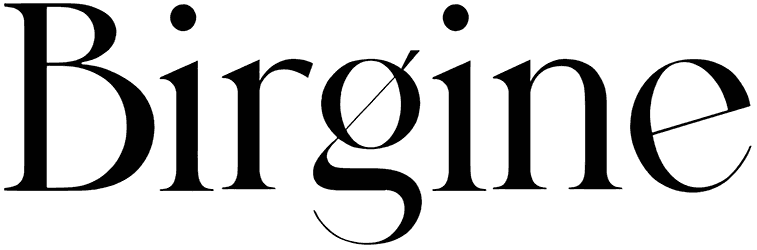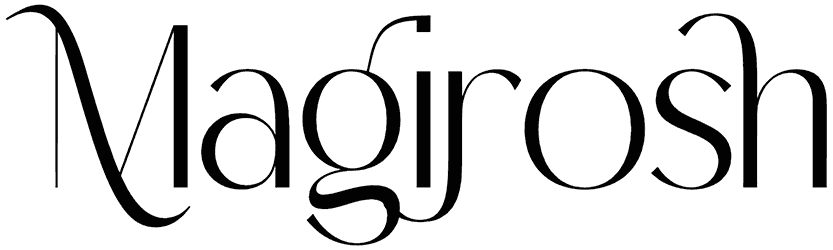
Look at the Diamond Sparkling font and see how this well-designed serif font lets you be distinctive. This elegant font is offered in two versions, regular and italic, and it may be a good choice for book covers, advertisements, and logos.
The characters of this luxury font are classy with sharp edges and seem firm, while some parts have a curvy shape or are thinner, making the font eye-catching.